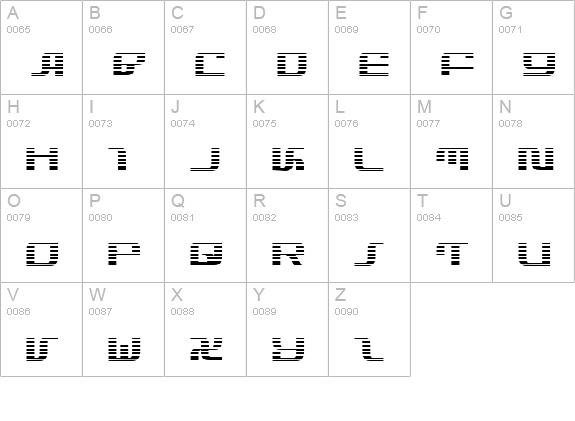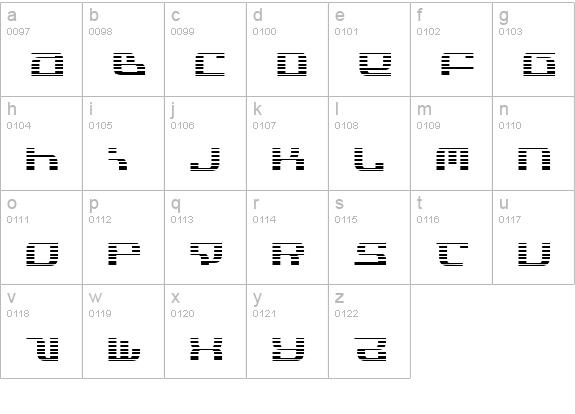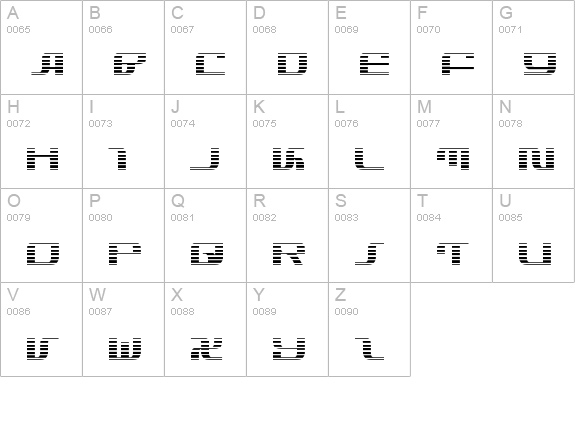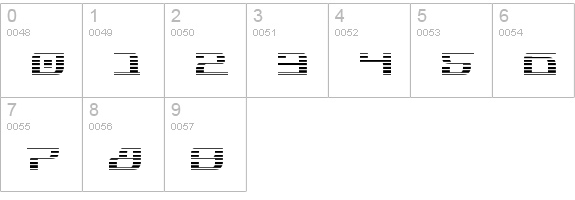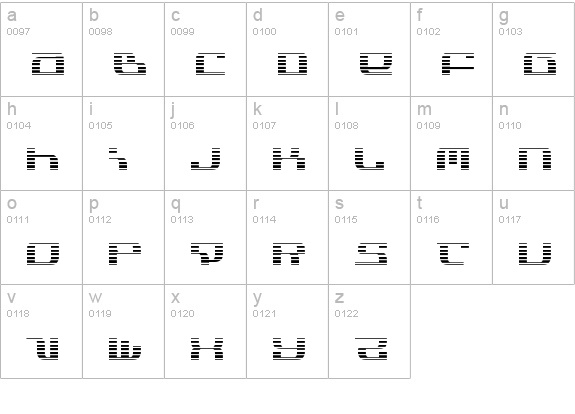
Infinity Formula Gradient font is a stunning display typeface that exudes a sense of modernity and sophistication. Its unique gradient effect creates a mesmerizing visual appeal, making it perfect for various design projects that require a touch of elegance and creativity. The sleek lines and sharp edges of this font give it a futuristic look that is sure to make your designs stand out. What makes Infinity Formula Gradient font even more appealing is that it is available for free download at FontsMarket.com. This means that you can easily access this eye-catching font and use it in your projects without any hassle. Whether you're working on a poster, logo, website, or any other design, Infinity Formula Gradient font is sure to make a bold statement and leave a lasting impression on your audience. Don't miss out on this amazing opportunity to enhance your designs with this stylish and versatile font. Download it for free today at FontsMarket.com!